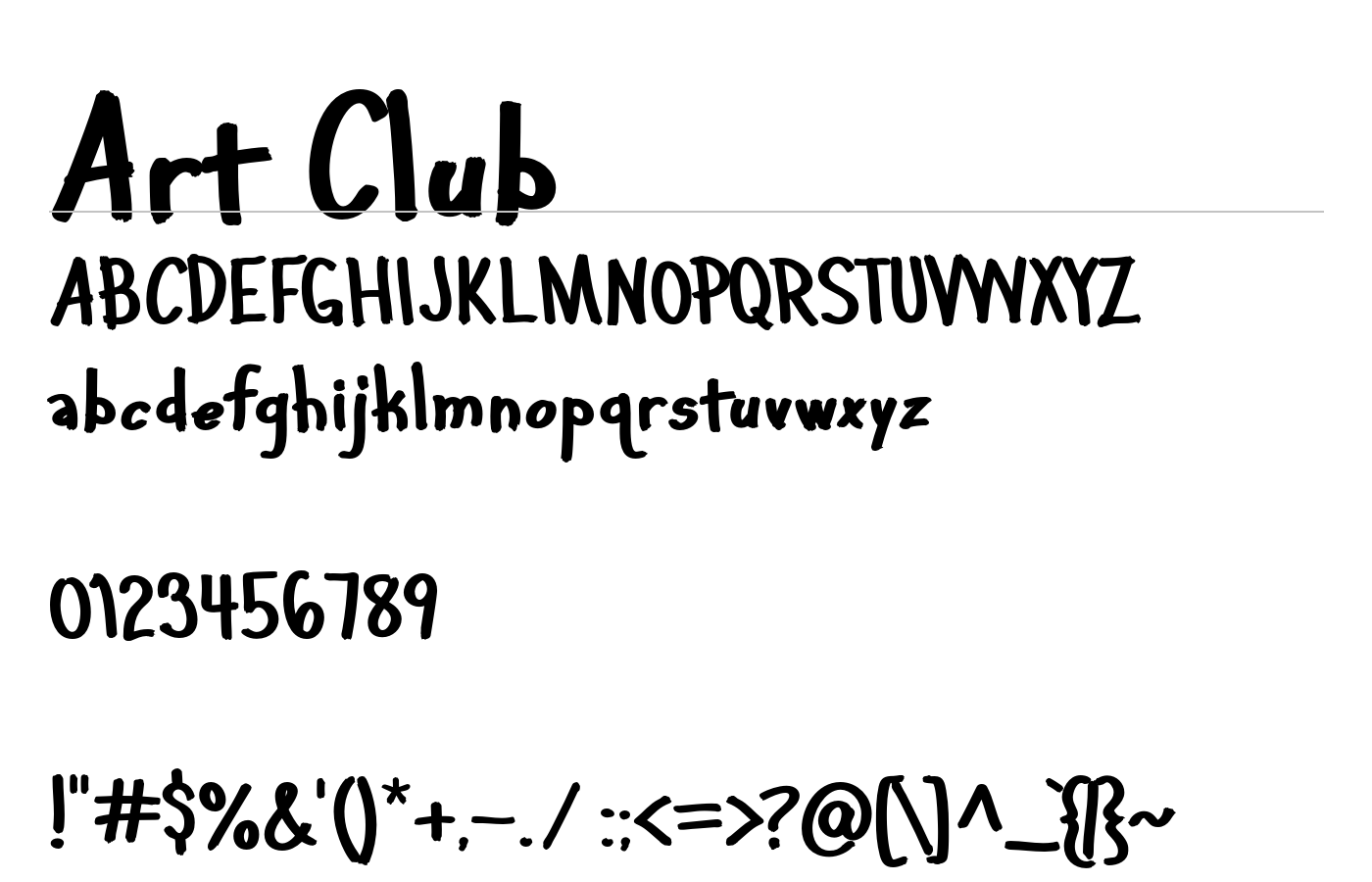
Art Club is a charming handwritten sans serif font with a playful and casual feel, featuring irregular strokes and slightly uneven letterforms that give it a warm, personal touch. Its medium weight and moderate contrast make it easy to read while maintaining an artistic, informal style perfect for creative projects, children’s materials, and friendly branding. This font works well for logos, invitations, posters, and any design seeking a fun and approachable personality.
Art Club Font
About Art Club Font
| Font family | Art Club Font |
| Designer | Dathan Boardman |